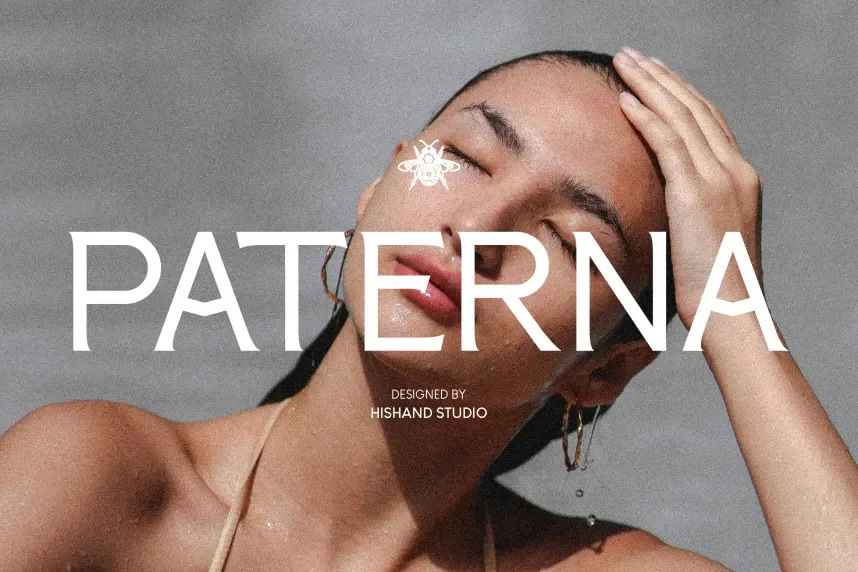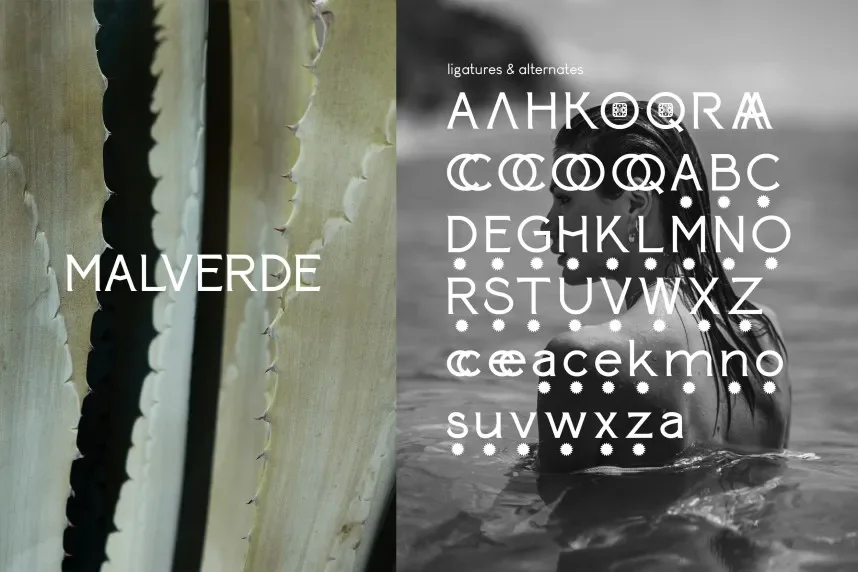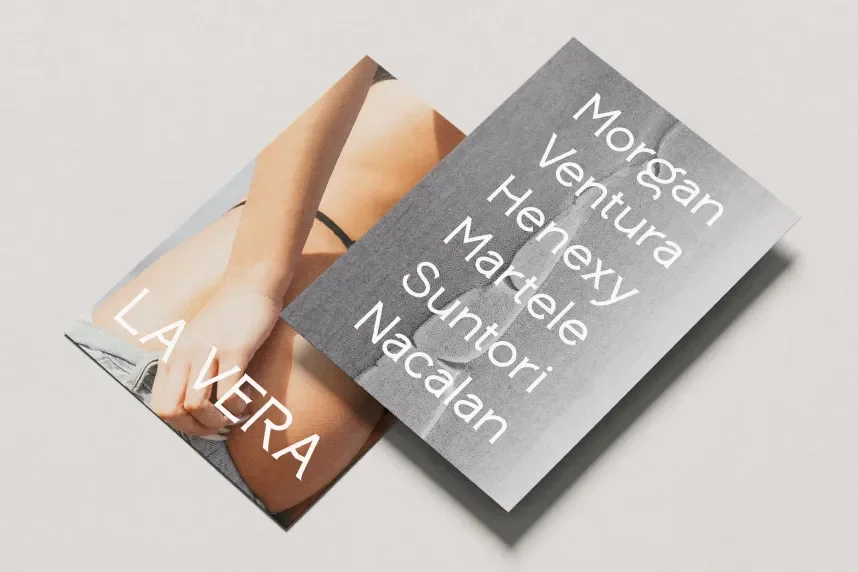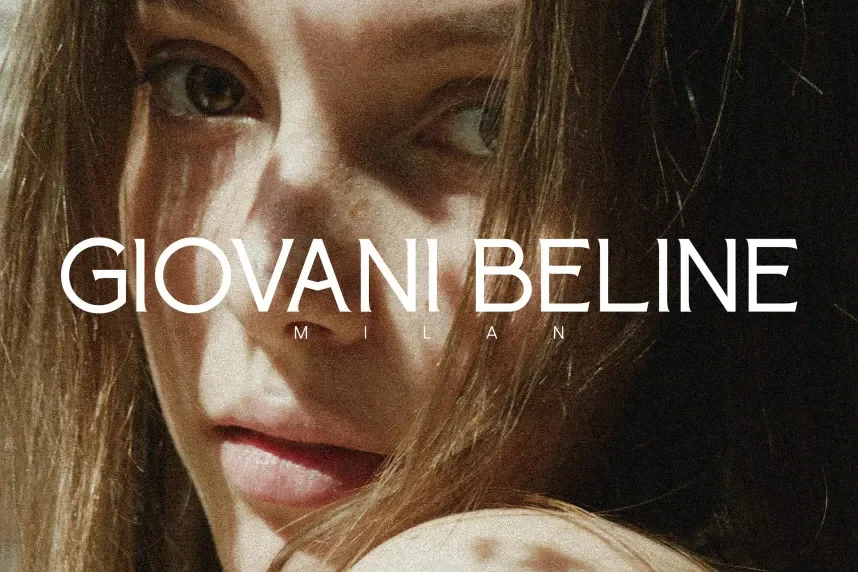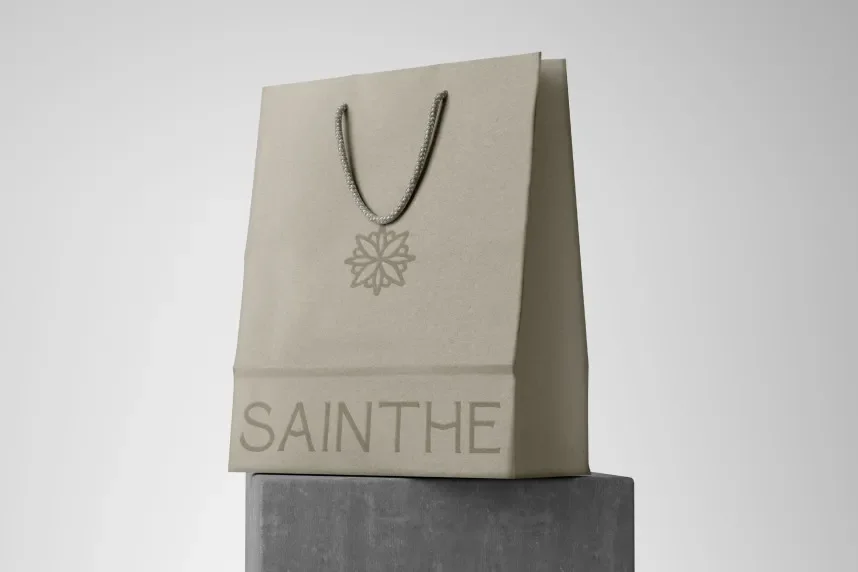
Paterna Font addresses a common typography issue in print and branding projects: achieving a formal tone without sacrificing readability. Designers working on editorial layouts, stationery, or brand identities often need a serif typeface that feels structured and reliable.
Paterna Font is a serif typeface with clear stroke contrast and well-defined letterforms. The characters feature balanced proportions, moderate contrast between thick and thin strokes, and stable serifs that support long-form reading. Curves remain controlled, which helps text stay legible in both print and digital formats.